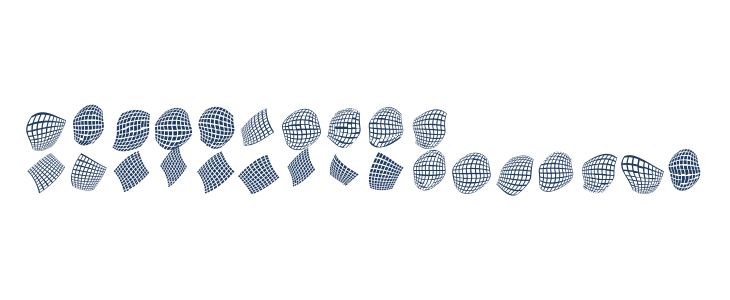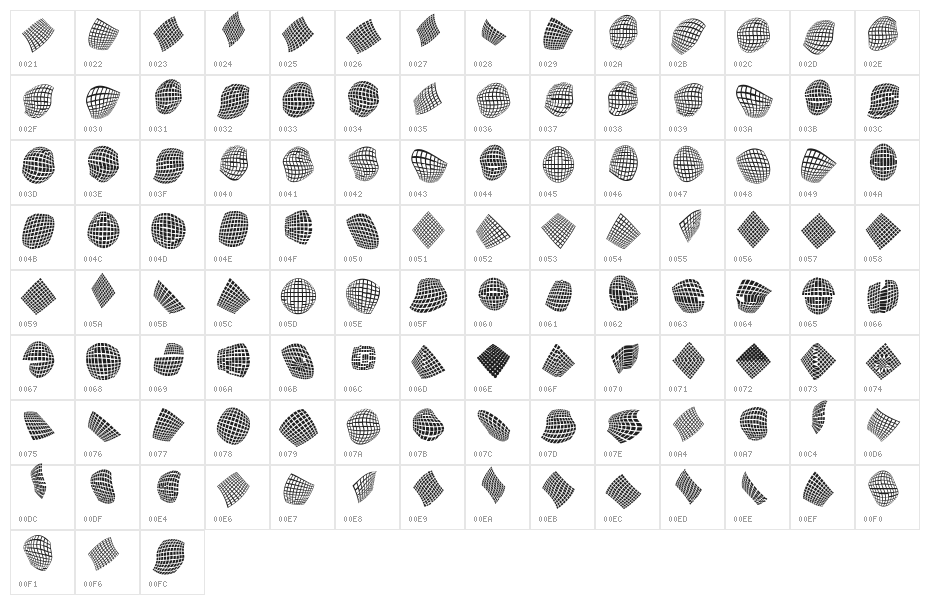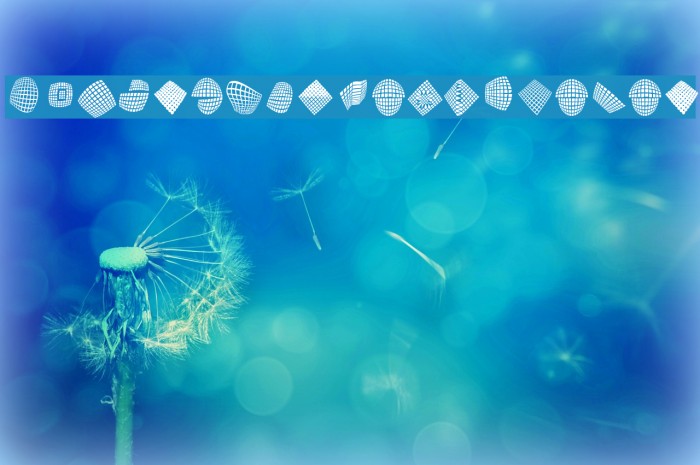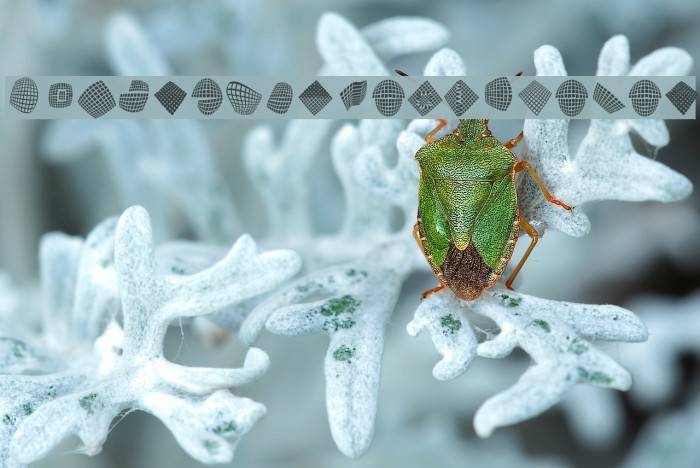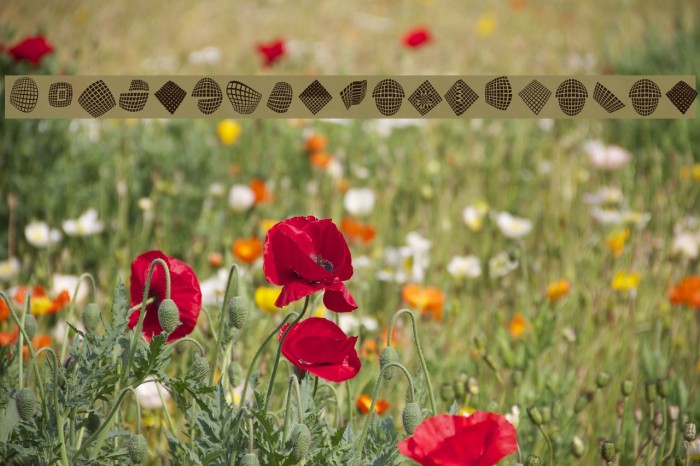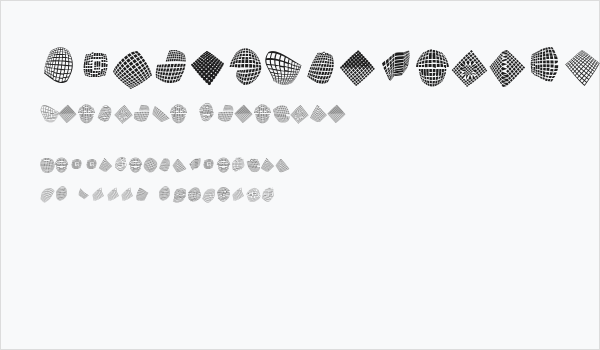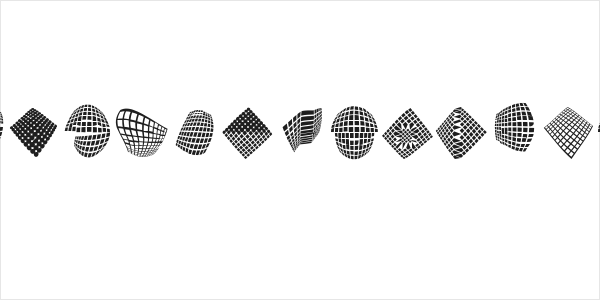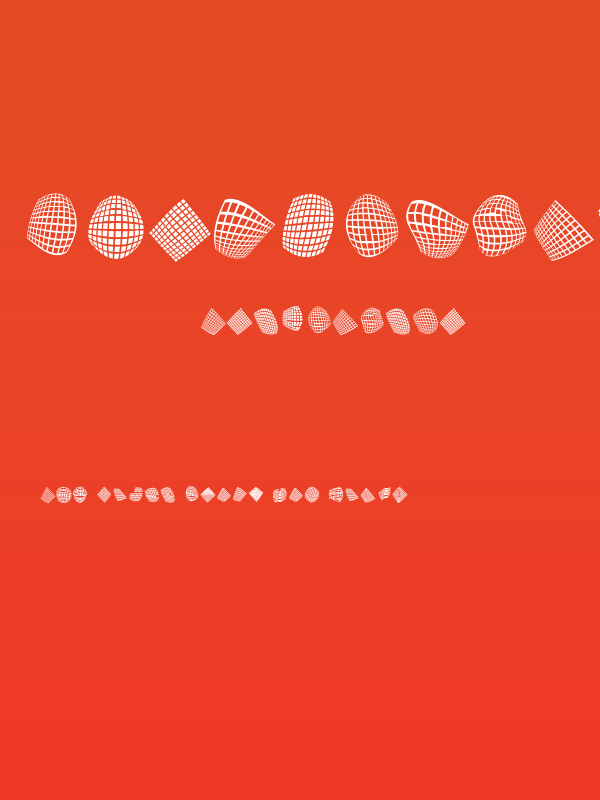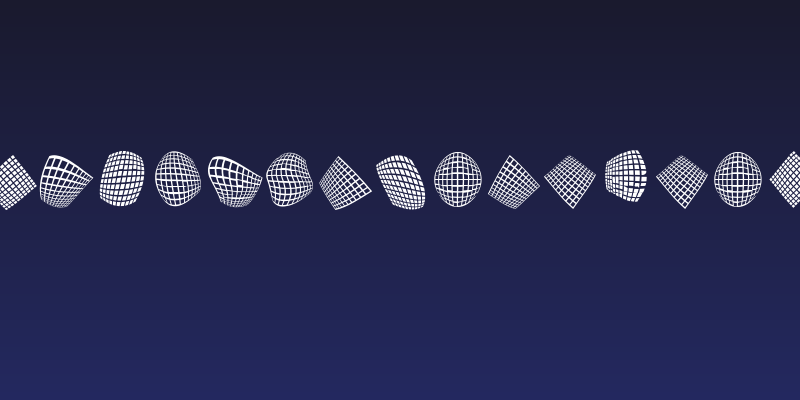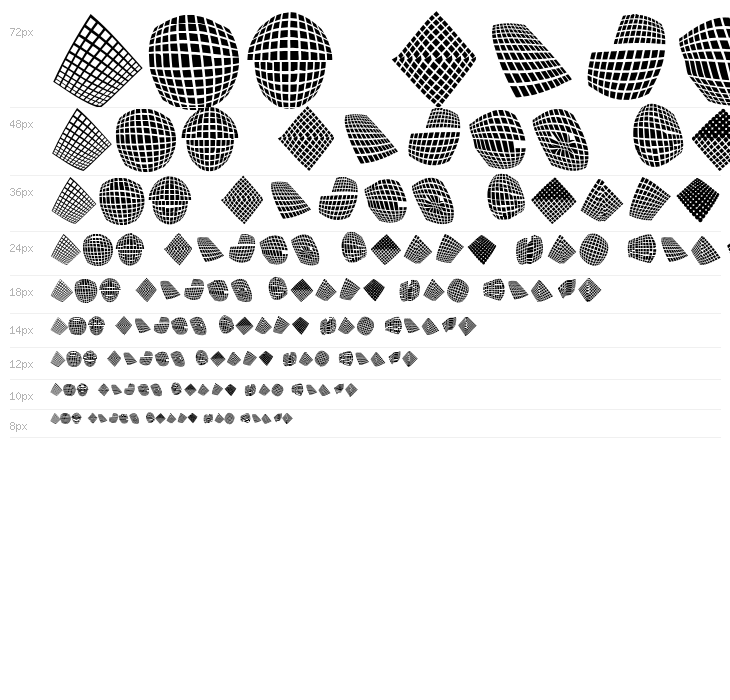
FlyingCarpetsOSeven Font
FlyingCarpetsOSeven Description
A highly decorative and abstract display typeface featuring distorted, three-dimensional grid shapes for each character, resembling floating or warped mesh objects. The forms are organic and irregular, with each glyph appearing as a unique, undulating surface.
| Overall Style | Decorative, Experimental, Abstract |
| Use Case | Logos, Posters, Art projects, Headlines |
| Proposed Projects | Album covers, experimental posters, digital art, avant-garde branding, event graphics. |